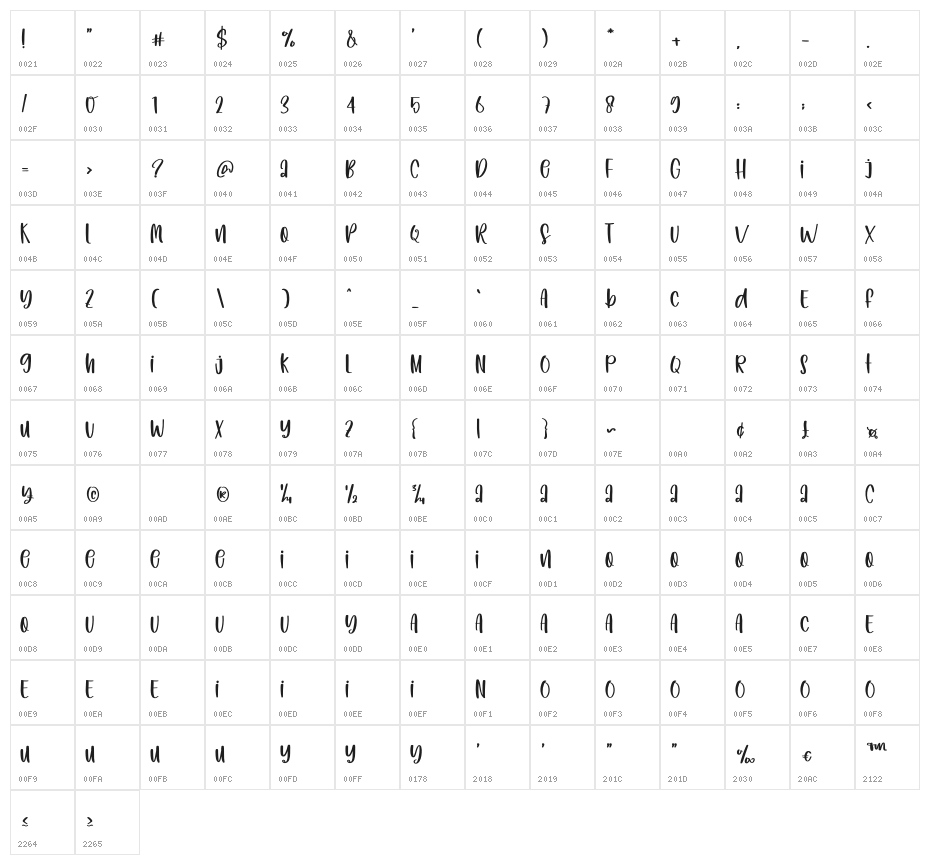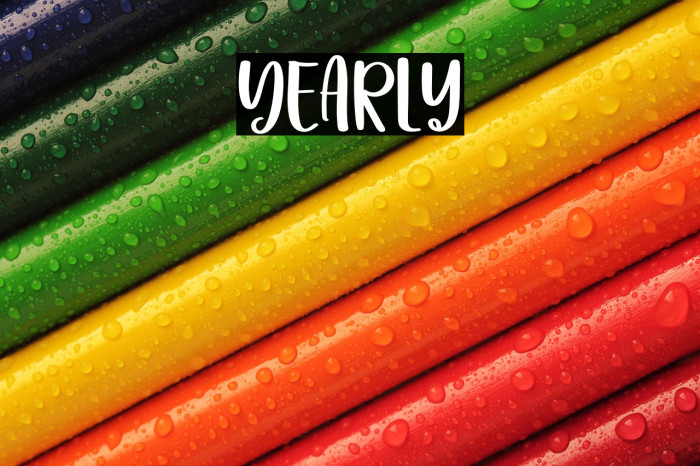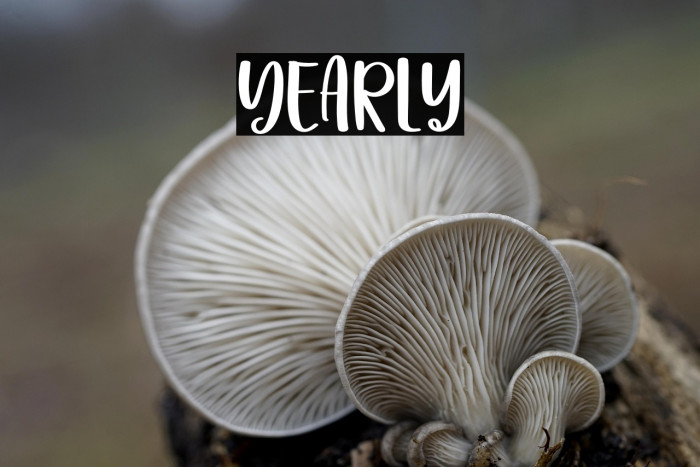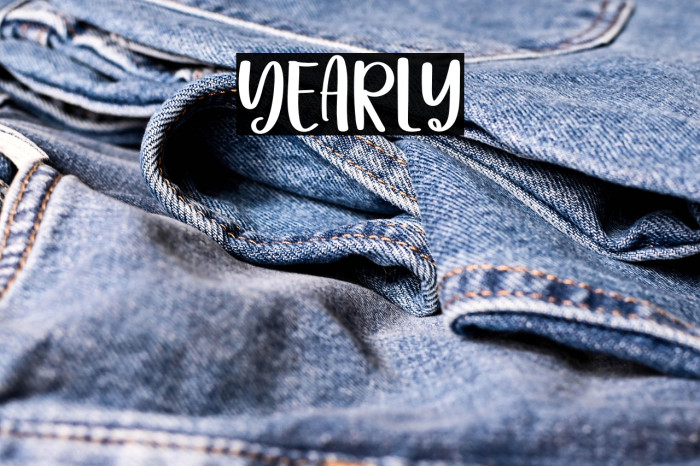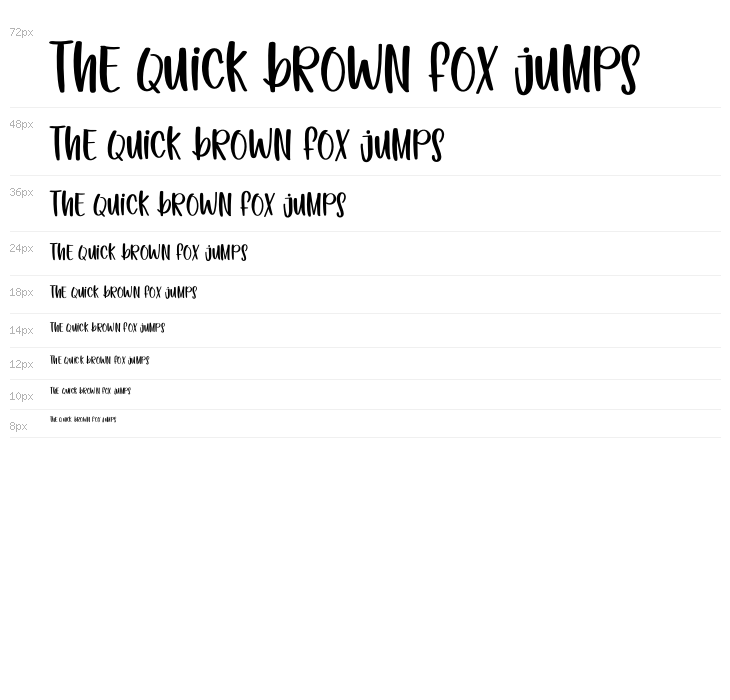
Yearly Font
Yearly Description
This font features a playful and expressive handwritten style, characterized by its flowing curves and dynamic strokes. The letters are bold and slightly condensed, giving it a lively and energetic appearance. The uppercase and lowercase letters maintain a consistent style, with a slight slant that adds to its casual feel. The numerals and special characters are designed to match the overall aesthetic, ensuring a cohesive look across all text. This font is perfect for projects that require a personal touch, such as invitations, greeting cards, or branding materials.
| Width | Condensed |
| Use Case | Logos, Headlines, Invitations |
| Proposed Projects | Ideal for invitations, greeting cards, branding, and any project needing a personal touch. |